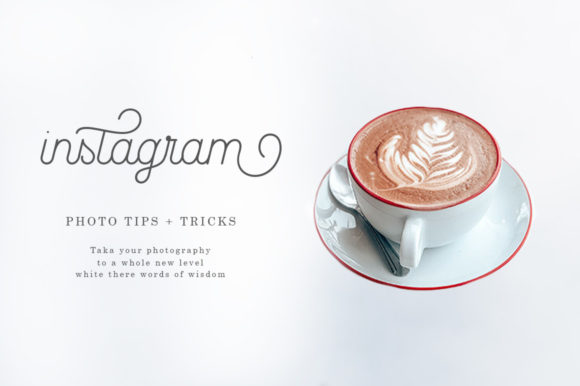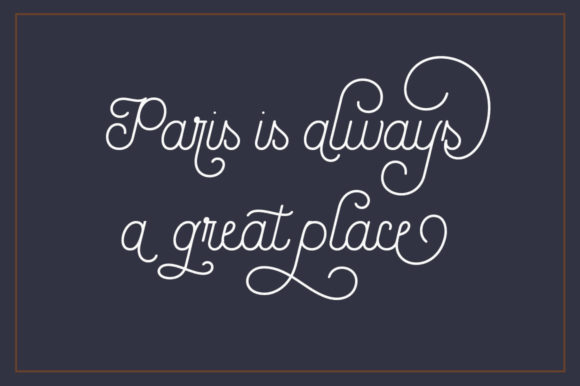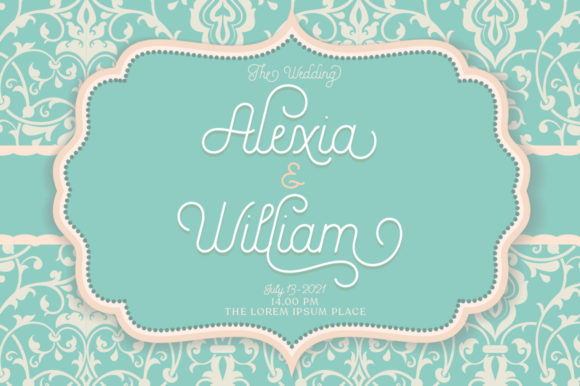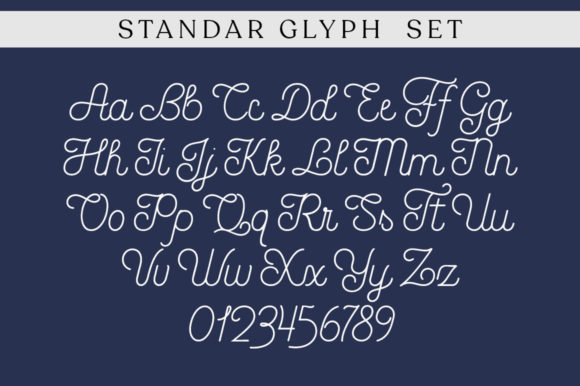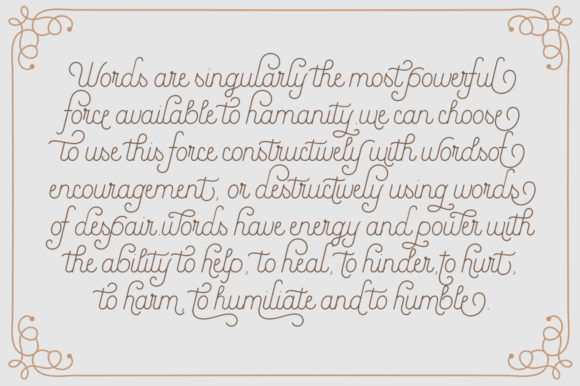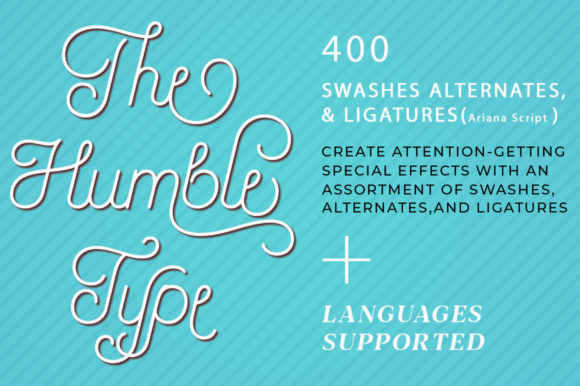
Ariana Script Font
About Ariana Script Font
Ariana Script is a stunning and elegant script font that brings a touch of vintage sophistication to your designs. With its thin letterforms and well-balanced strokes, this font exudes a timeless beauty that adds a touch of refinement to any project.
The vintage-inspired style of Ariana Script makes it a perfect choice for a variety of design purposes. Whether you’re creating logos, branding materials, invitations, stationery, or social media posts, this font will elevate the quality of your designs and give them a classic and elegant look.
One of the advantages of Ariana Script is its PUA encoding, which allows you to easily access all of the glyphs and swashes available in the font. This means you have the freedom to customize and enhance your designs with various decorative elements and stylistic variations, adding further uniqueness and charm to your creations.
Ariana Script’s versatility and adaptability make it suitable for both formal and informal projects. It can be used to create sophisticated wedding invitations, elegant business cards, or even to add a touch of vintage flair to blog headers and social media graphics.
The thin letterforms of Ariana Script give it a delicate and refined appearance, making it a great choice for projects that require a touch of elegance and femininity. Its well-balanced strokes create a harmonious flow, enhancing the readability and overall visual appeal of the font.